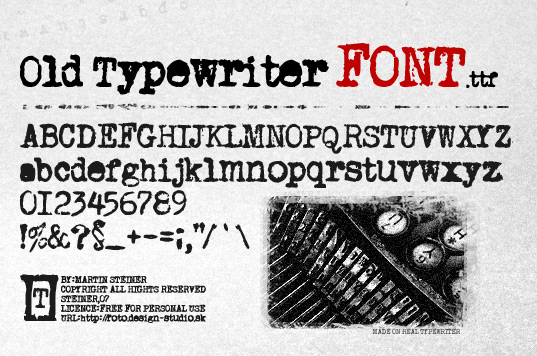
Old Typewriter Font
Old Typewriter by M-Dfonts is a free typewriter font with the authentically aged character of a well-worn machine — its uneven baselines, variable ink density, and period-appropriate imperfections creating the kind of vintage typewriter font texture that feels genuinely historical rather than digitally approximated. Free for personal use; commercial via designer contact.